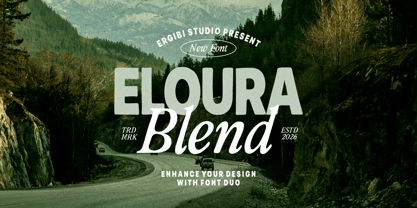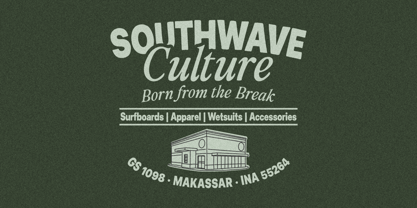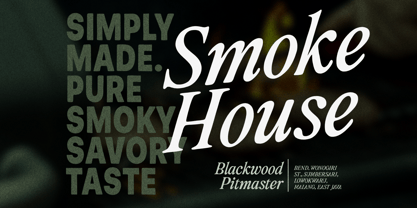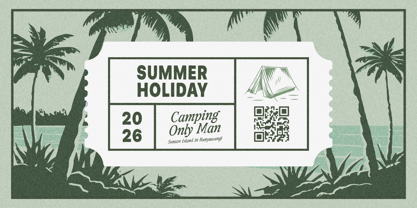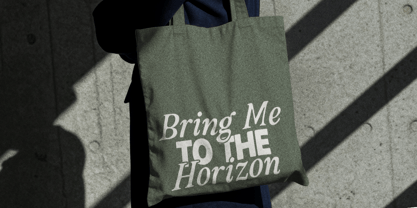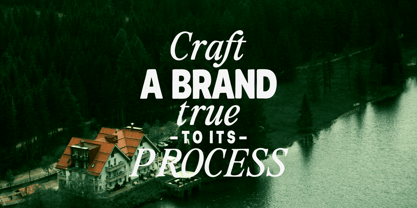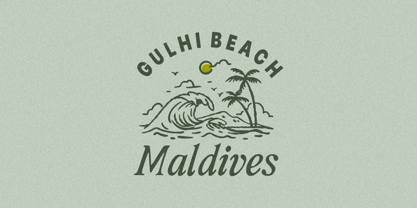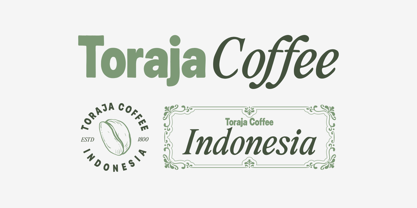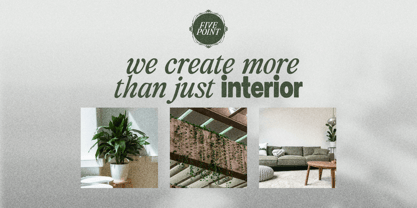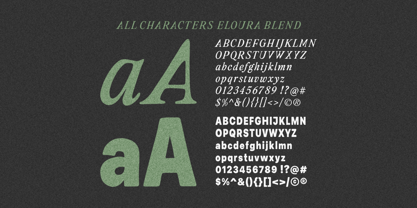
Eloura Blend
by Ergibi Studio
The Eloura Blend Font Family was designed by Riyadh Rahman and published by Ergibi Studio. Eloura Blend contains 2 styles and family package options. More about this family
Eloura Blend is a modern font duo that brings together an elegant serif and a clean, simple sans serif. The pairing is designed to feel natural and easy to read, while still carrying a strong and distinctive character. This font works beautifully across many design needs—branding, editorial layouts, logos, packaging, posters, and social media. The serif adds a sense of warmth and refinement, while the sans serif keeps things fresh, clear, and modern. if you have any questions, don’t hesitate to contact us Ergibi Studio